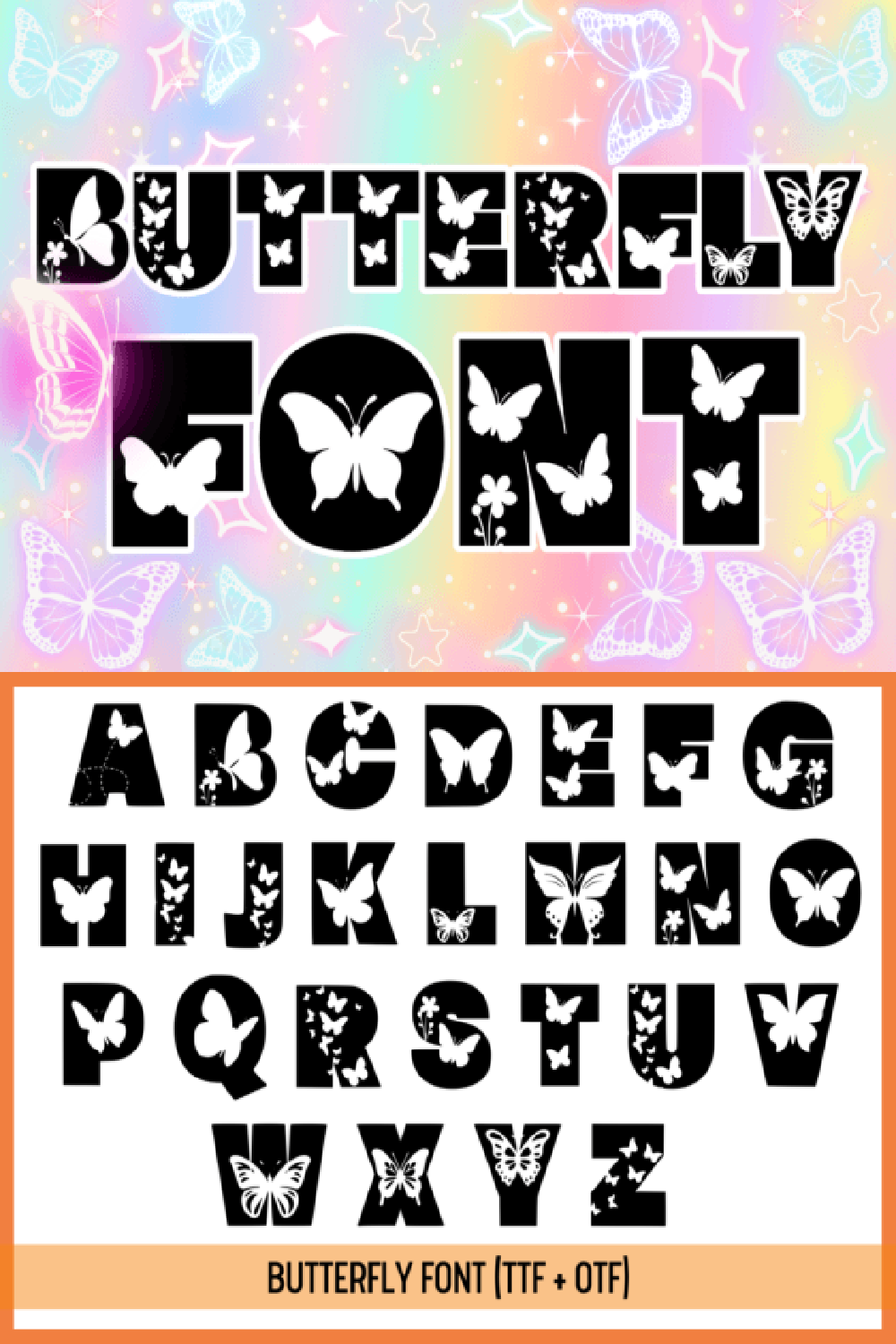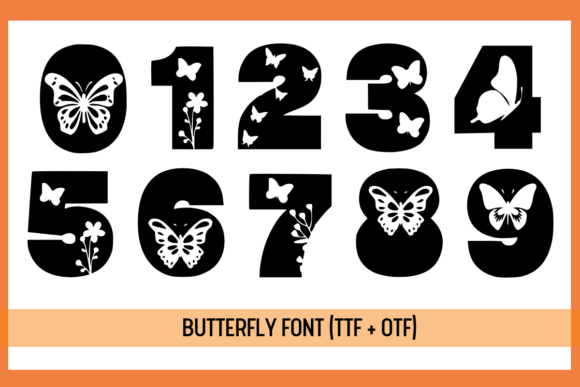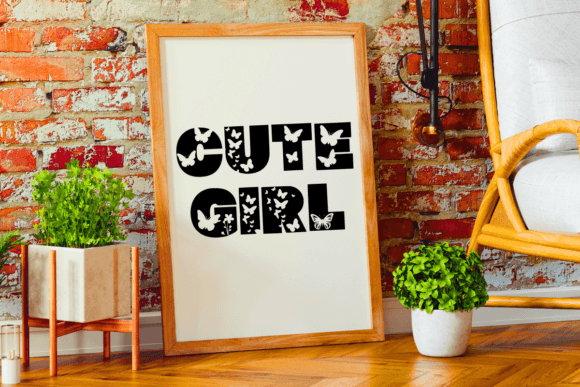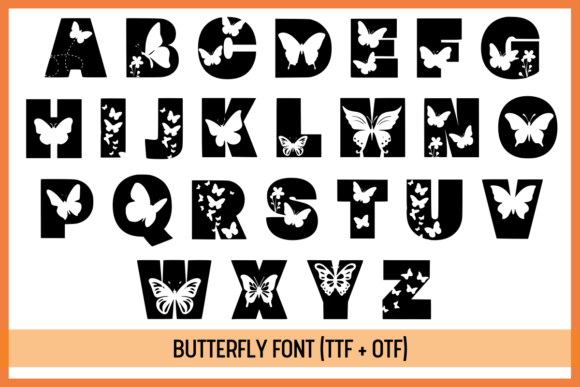
About the Butterfly Font
Elevate your designs with Butterfly Font, a font that combines sophistication with readability. Meet Butterfly, a fun and fancy font that’s full of personality! Each letter is filled with the delicate silhouette of a butterfly, adding a touch of whimsy to your designs. Perfect for adding flair to invitations, posters, and more!